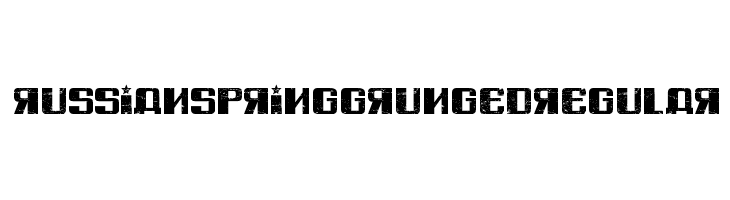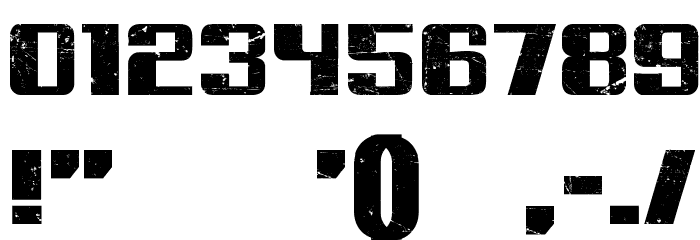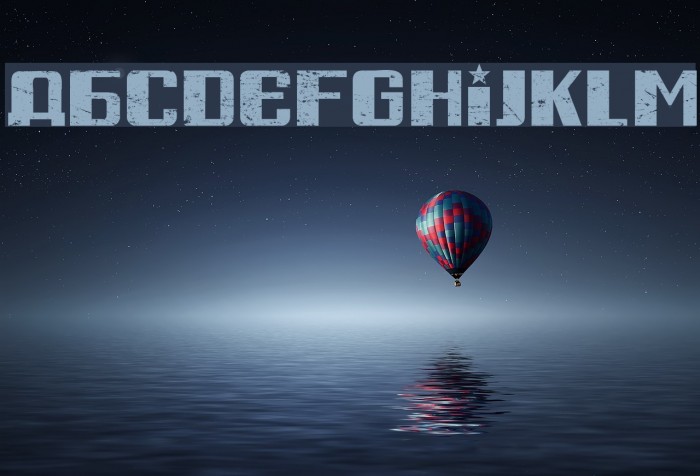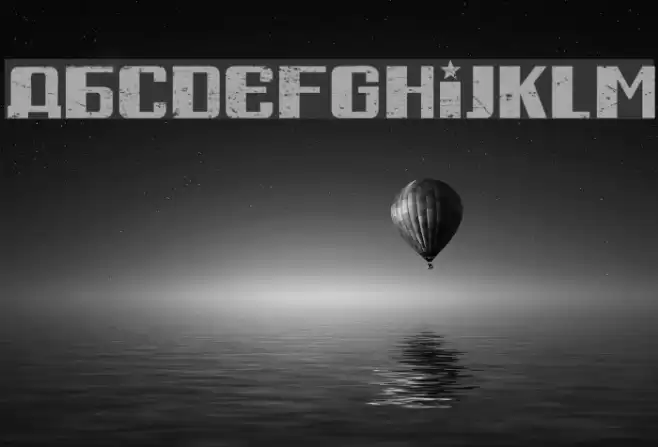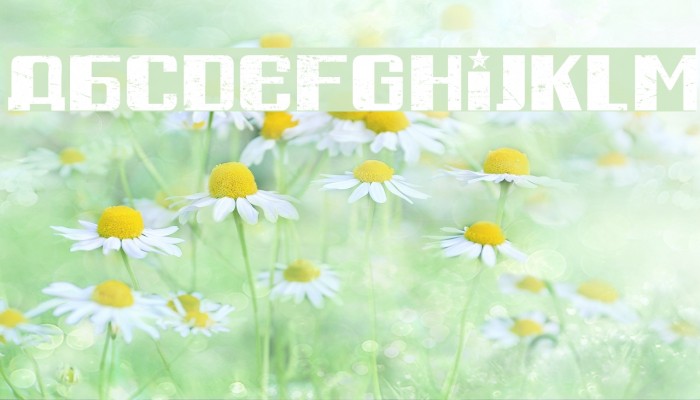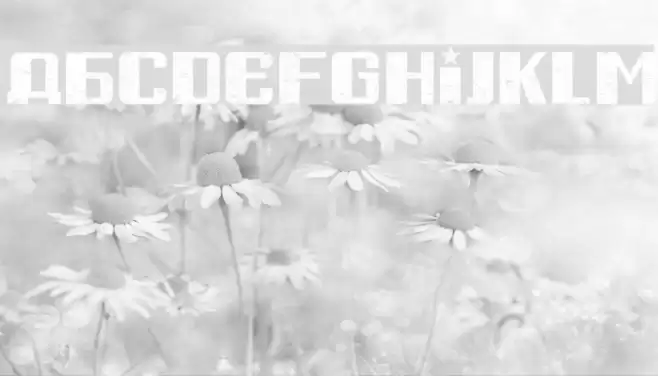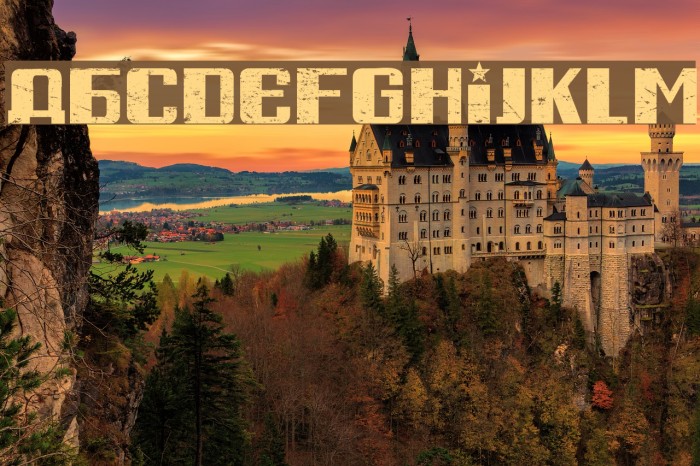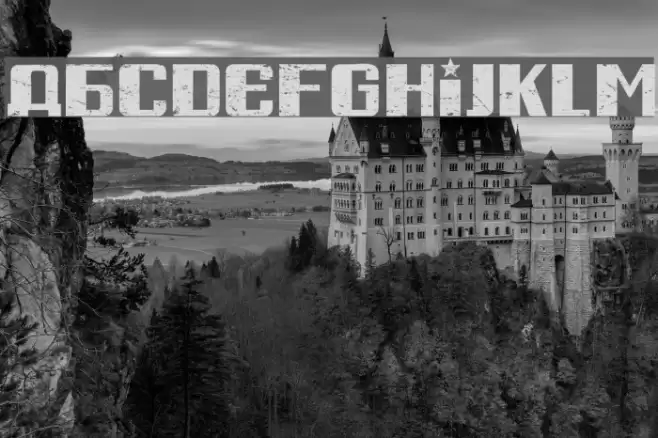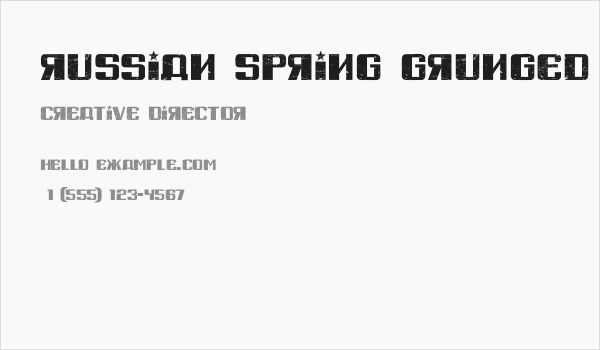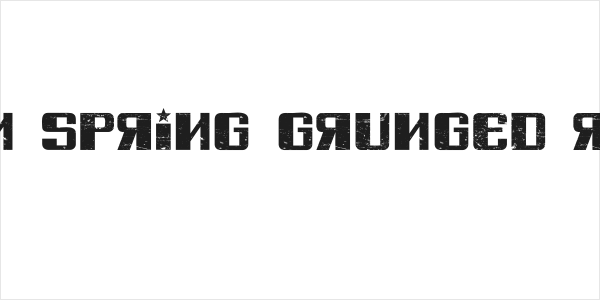
Russian Spring Grunged Regular Font
Russian Spring Grunged Regular Description
This font features a bold, distressed style with a grunge effect, giving it a rugged and worn appearance. The characters are blocky and robust, with a stencil-like quality that suggests a military or industrial influence. The texture adds a sense of history and depth, making it ideal for projects that require a strong, impactful visual statement. The uppercase letters are prominent, and the inclusion of Cyrillic characters expands its versatility. Numbers and punctuation maintain the same distressed aesthetic, ensuring consistency across all text elements.
| Overall Style | Grunge, Industrial |
| Proposed Projects | Ideal for posters, album covers, video game graphics, and branding that requires a strong, gritty aesthetic. |